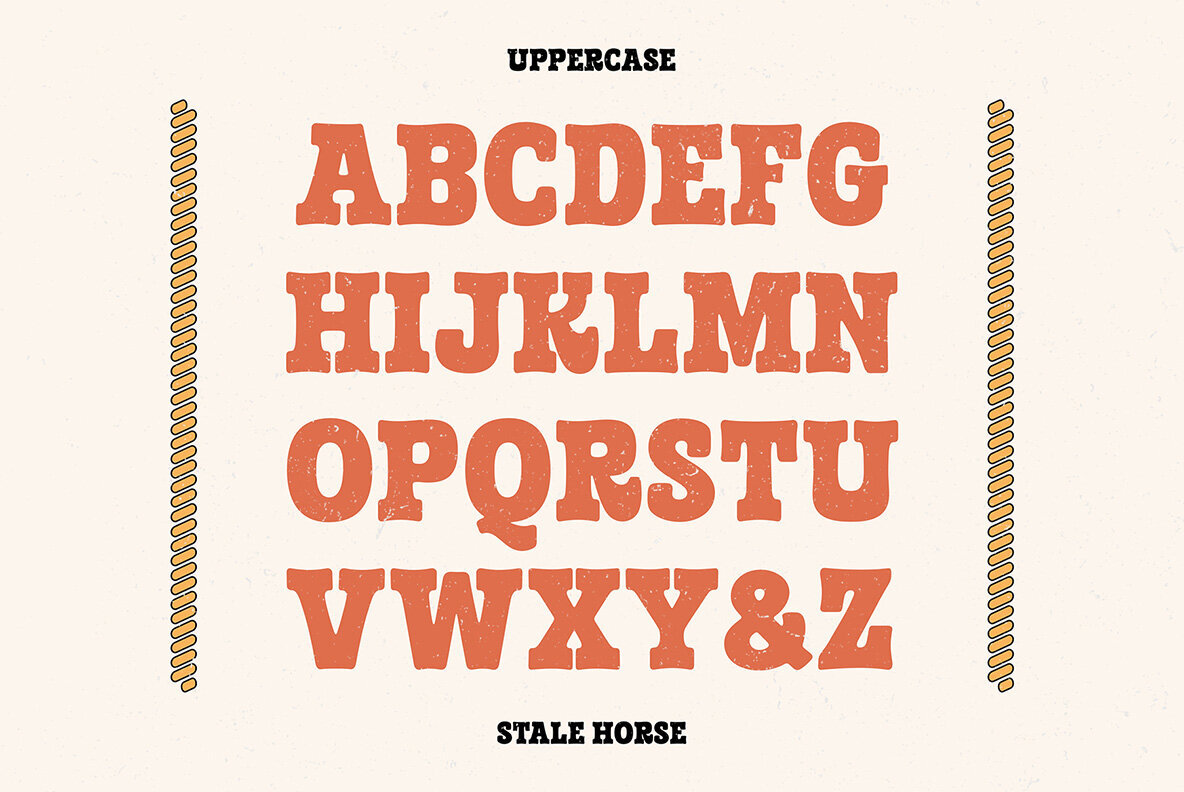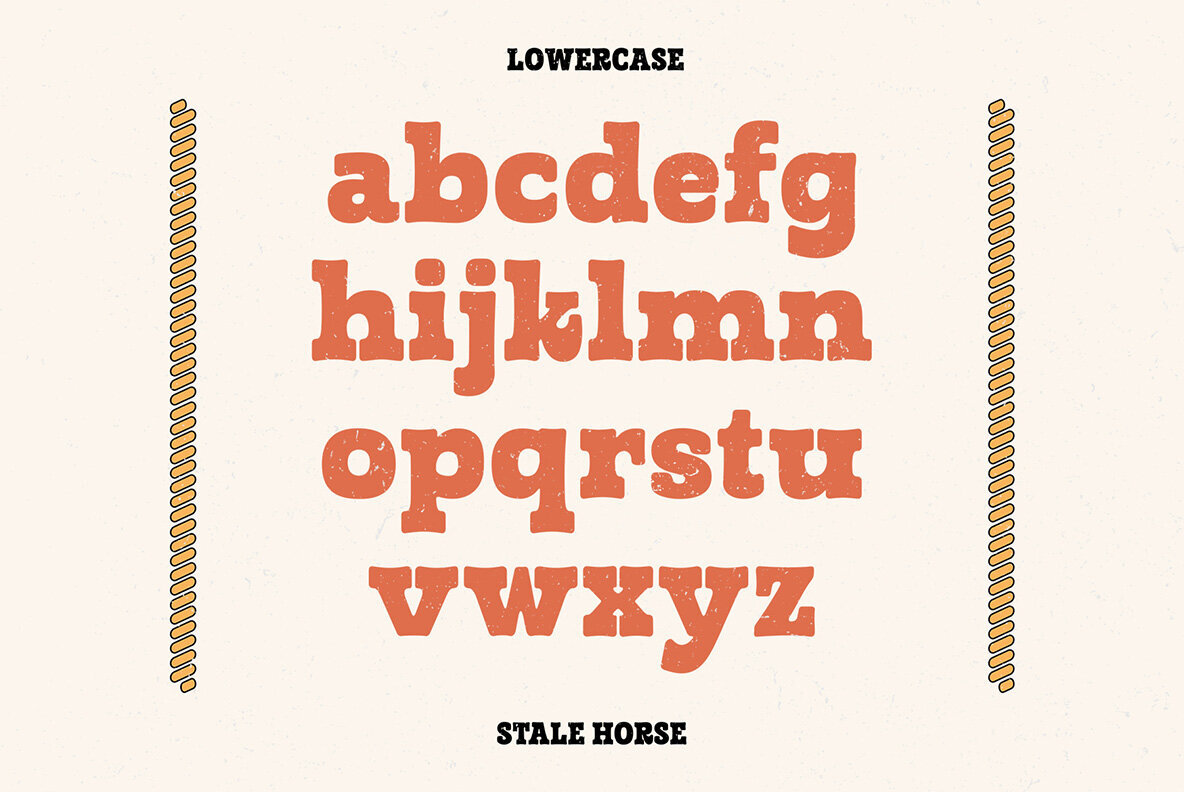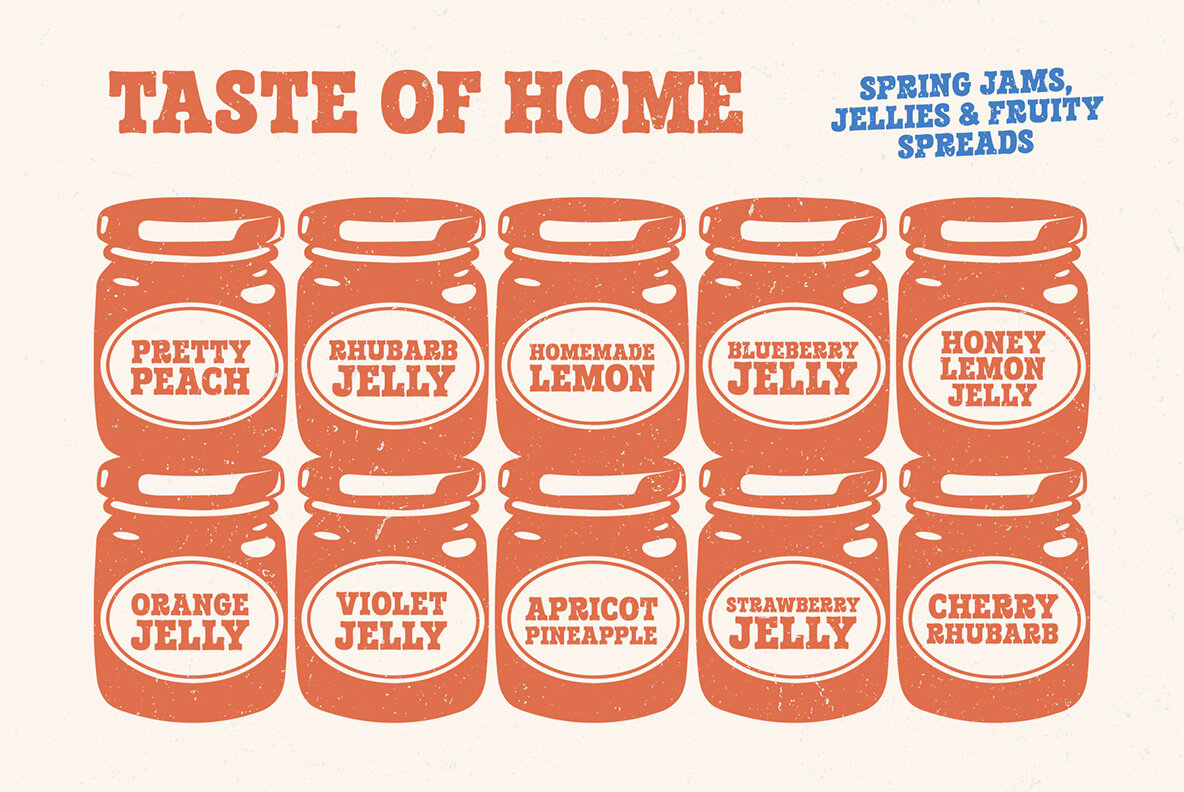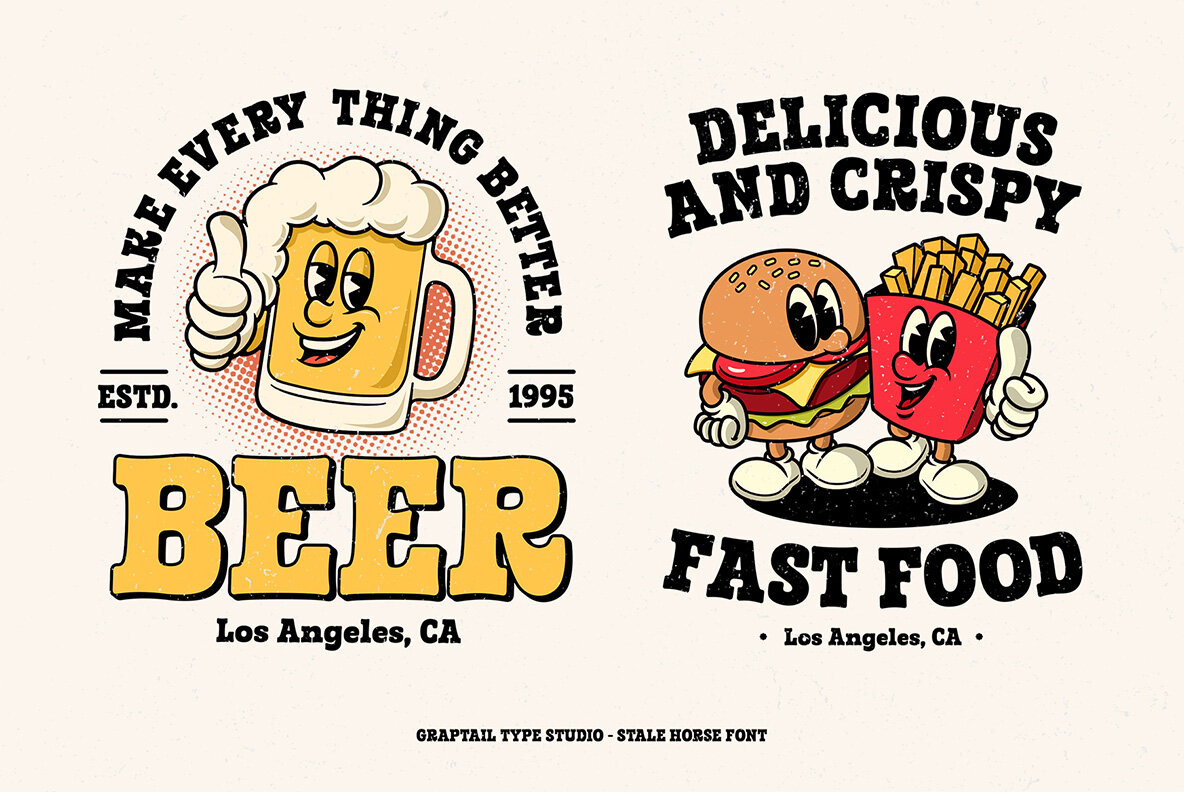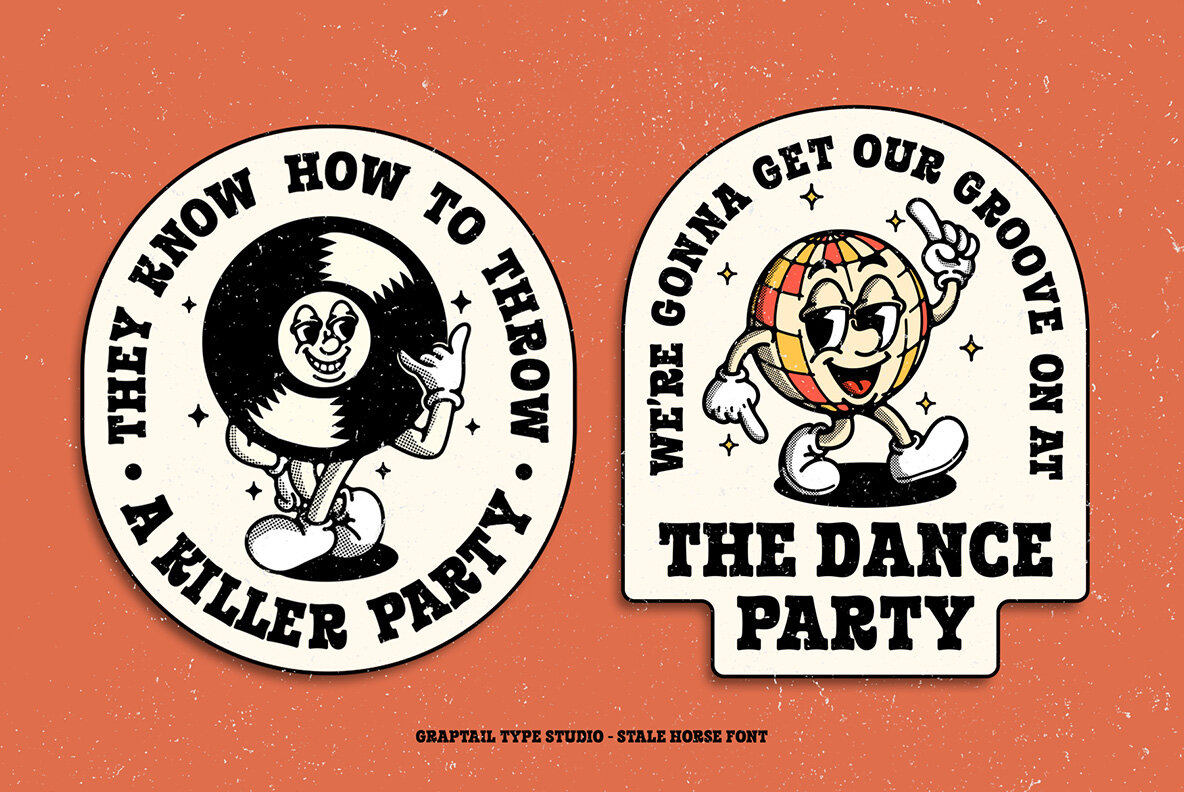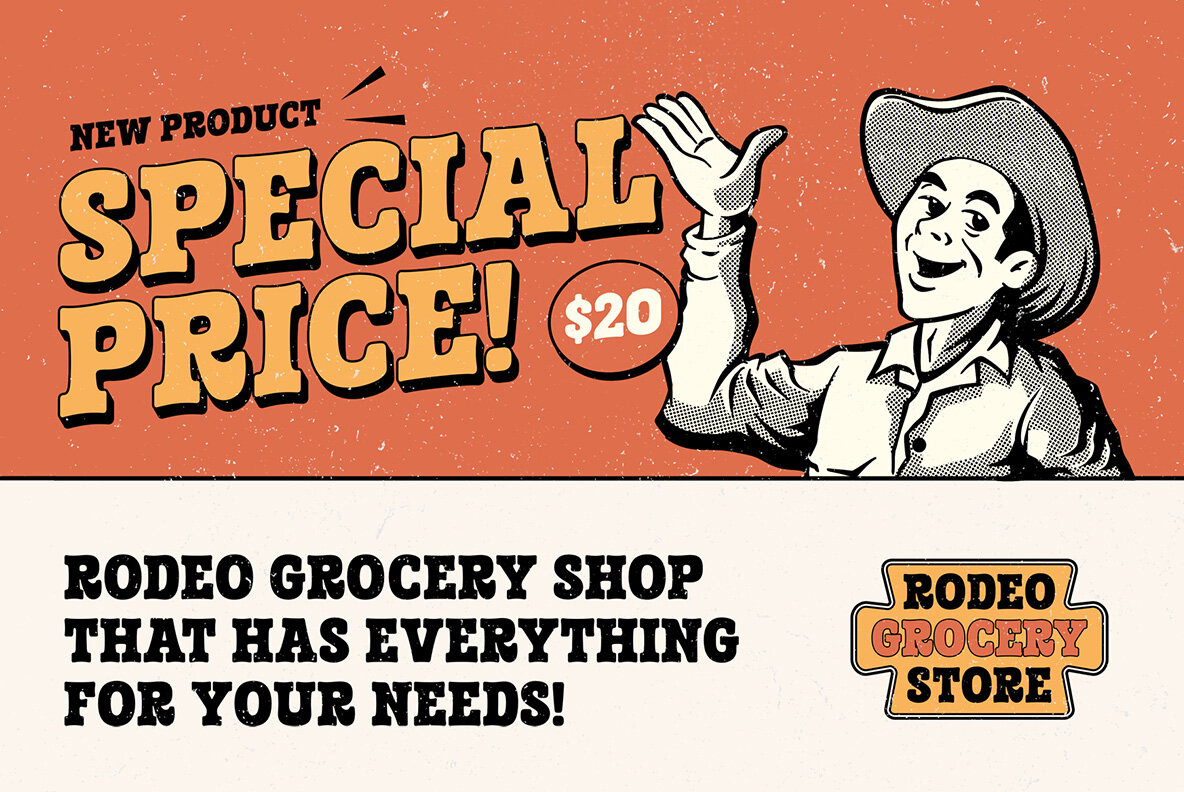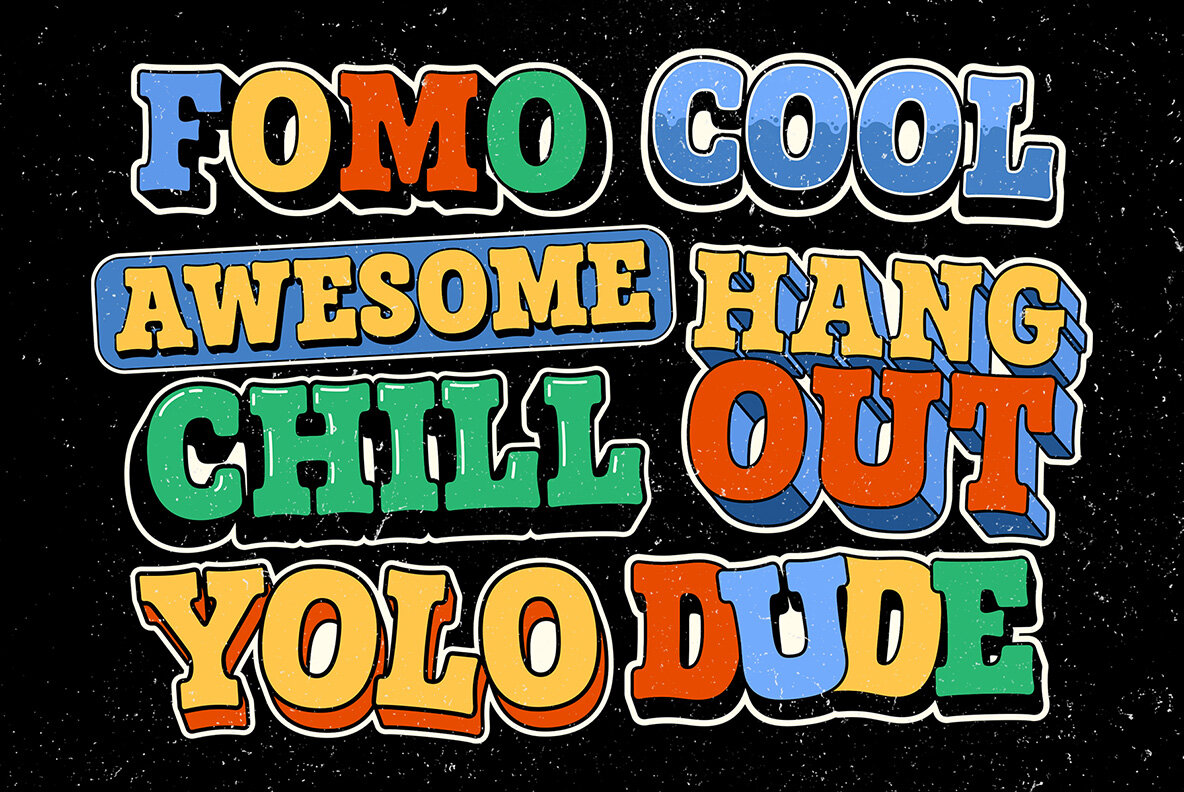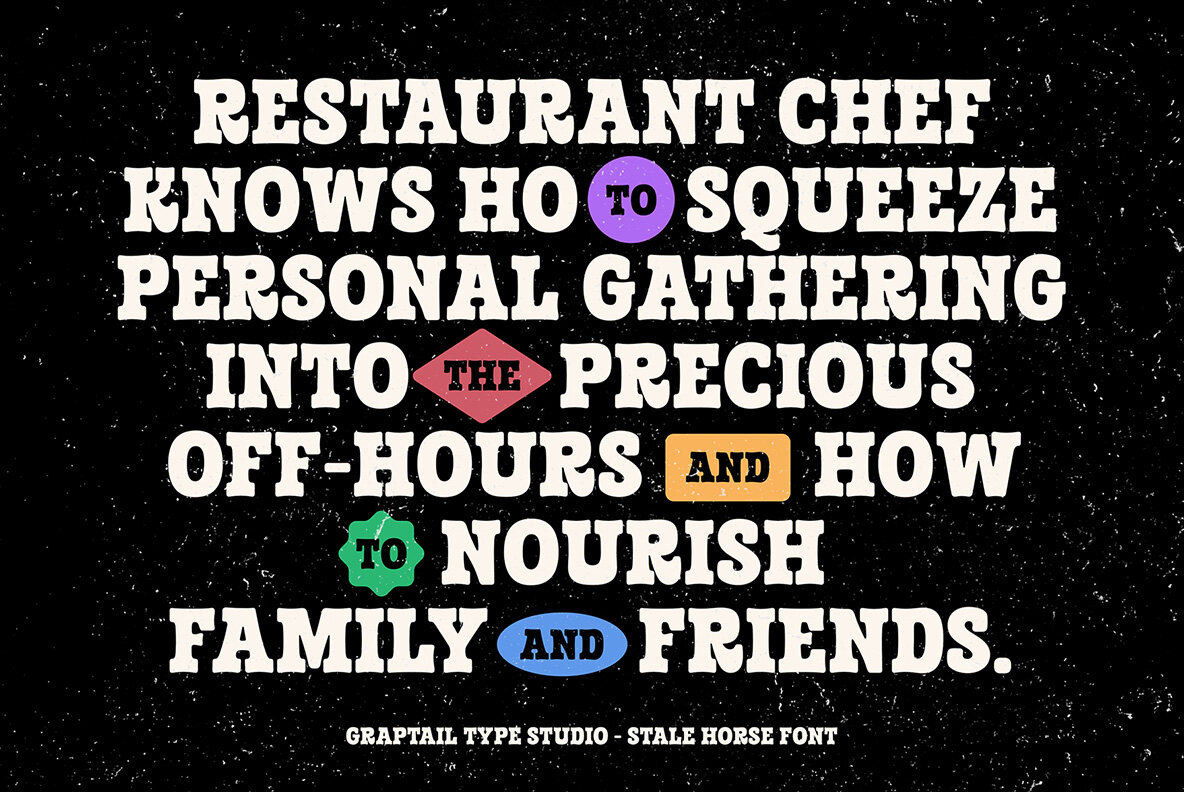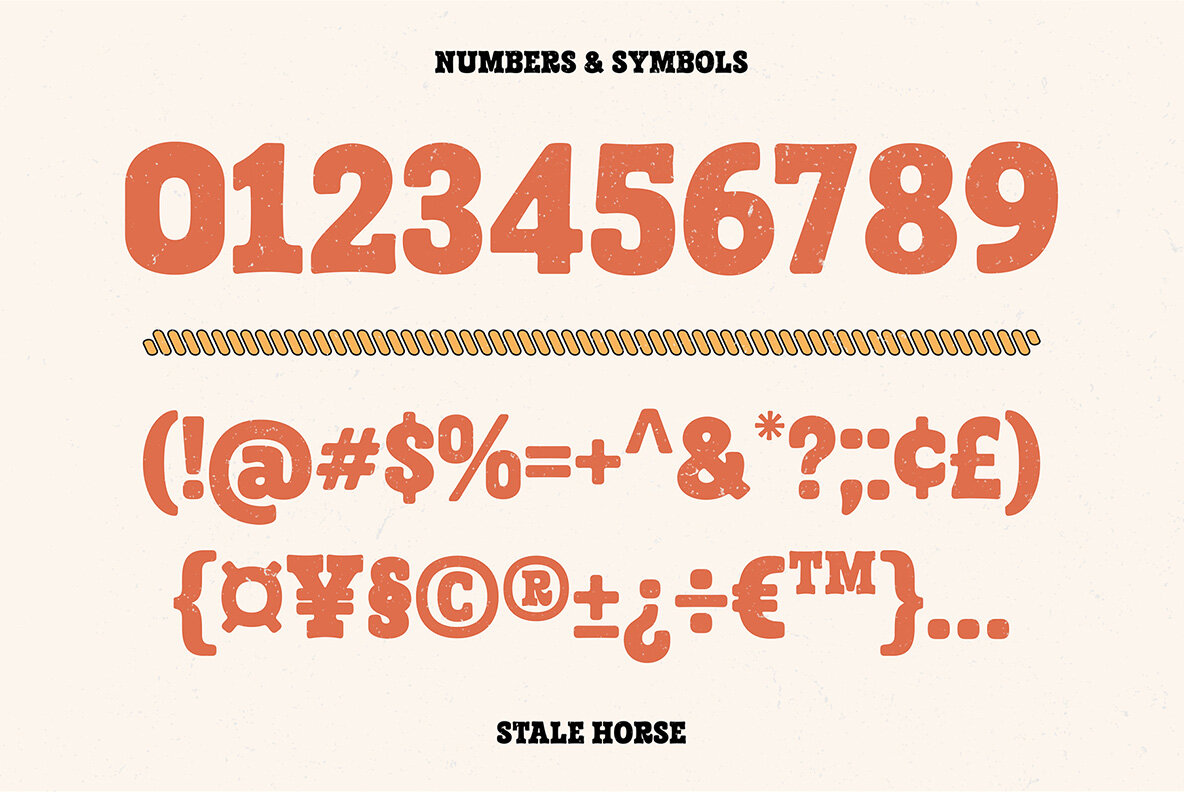
Stale House Font
Stale Horse Bold
Welcome to a bold and stylish era of cowboys with the Stale Horse Western Typeface! This font delivers an unyielding classic touch and embodies the powerful atmosphere of the Wild West. With meticulous details and impressive characters, Stale Horse is ideal for projects needing a retro vibe with a cowboy twist. Utilize this font in logo designs, posters, merchandise, and other artwork to evoke an authentic and striking impression.Stale Horse: Western Typeface for a Bold, Classic Touch
Perfect for Retro Vibe Projects